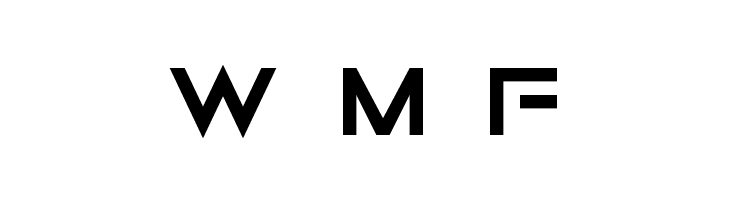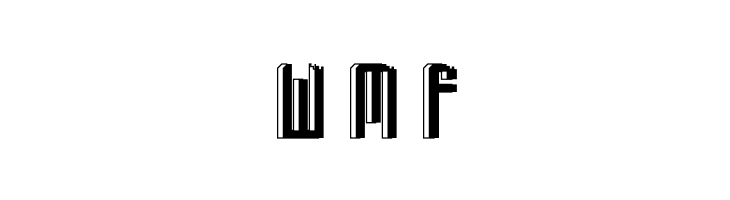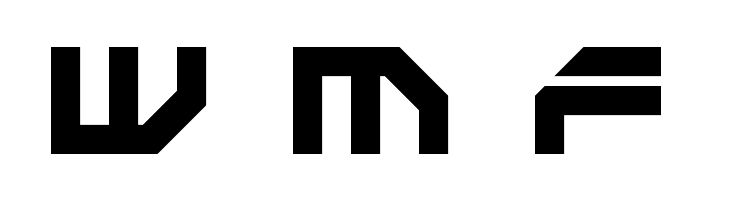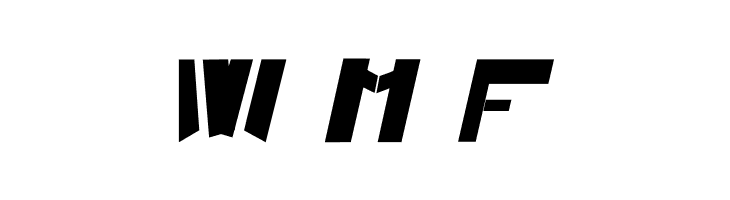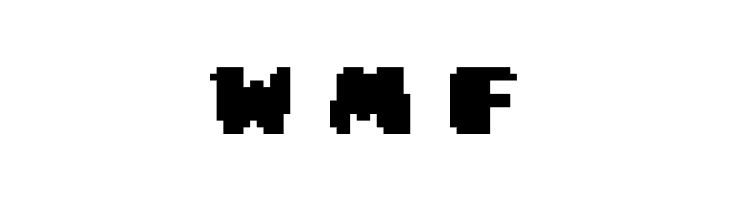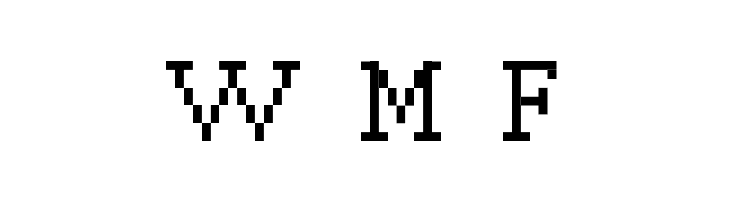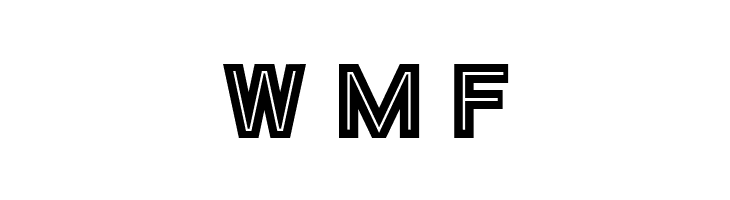
( Salvador Rodríguez )
A pixelated, retro-style font inspired by classic video games.
( Simone Ippoliti )
A pixelated, retro-style font with a digital, blocky appearance.
( TheLouster115 )
A pixelated, retro font inspired by classic video games.
( Vladimir Nikolic - www.coroflot.com/vladimirnikolic )
A decorative font made from video game controller icons.
( Vladimir Nikolic - www.coroflot.com/vladimirnikolic )
A 3D block font with a retro, video game-inspired design.
( fontvir.us - xero harrison - fontvir.us )
Pixel-art decorative font with retro video game villain characters.
( hechicero - www.ff-omeganebula.com )
A decorative and intricate font with mystical, calligraphic elements.
A bold, brush-style font with dynamic, handcrafted strokes.
A bold, pixelated font with a retro, video game-inspired design.
( memesbruh03 - Aaron D. Chand )
A pixelated, blocky font inspired by early digital displays and retro video games.
( myname5749 )
A pixelated, grid-based font with a retro digital aesthetic.
( w01v35w0rd )
Pixel-art symbol font with diverse icons and a retro gaming feel.
( 010Bus )
A pixelated, monospaced font with a retro digital style.
( 010Bus )
A pixelated, blocky font with a retro digital aesthetic.
( 04 - www.04.jp.org )
A pixelated, monospaced font with a retro digital aesthetic.
( BitmapMania - bitmapmania.m78.com/ )
A pixelated, decorative font with characters enclosed in a gear-like border, evoking a retro digital feel.
( Brynda1231 Industries )
A pixelated, monospaced font with a retro digital aesthetic.
( Casually Hardcore - www.casuallyhardcore.co.uk/ )
A bold, pixelated font with a retro video game style.
( Casually Hardcore - www.casuallyhardcore.co.uk/ )
A bold, pixelated font with a retro video game aesthetic.
( Chequered Ink - chequered.ink/ )
A bold, playful handwritten font with rounded, irregular letterforms.
( CreeperPower618 )
Pixelated pictograph font with ancient and digital influences.
( Daniel Nagura - )
A pixelated, retro-style font inspired by classic 8-bit video games.
( Daniel Nagura - )
A pixelated, outlined font inspired by classic 8-bit video games.
( Digital Type Foundry - www.digitaltypefoundry.com/ )
A runic-inspired font with angular, geometric shapes and medium contrast.
( Dingbat Dungeon )
Geometric maze-like design with a classic dungeon map aesthetic.
( Electropithecus )
A bold, pixelated font with a retro video game aesthetic.
( Family Font Mart - www.h2o.or.jp/~orihikao/ )
Pixelated monospaced Japanese font with a retro digital style.
( Fleisch )
A pixelated, monospaced font with a retro digital aesthetic.
( Font-a-licious - www.fontalicious.com/ )
A bold, playful font inspired by classic arcade games with geometric shapes.
( GeelynEdits - plus.google.com/u/0/108461348931992643310/ )
A pixelated, monospaced font with a retro digital aesthetic.
( Genshichi Yasui - www.jttk.zaq.ne.jp/babwp701/hpfont/font.html )
A bold, pixelated font with a retro arcade game style.
( Genshichi Yasui - www.jttk.zaq.ne.jp/babwp701/hpfont/font.html )
A pixelated, retro font inspired by classic arcade games.
( Genshichi Yasui - www.jttk.zaq.ne.jp/babwp701/hpfont/font.html )
A pixelated, retro-style font inspired by classic arcade games.
( Genshichi Yasui - www.jttk.zaq.ne.jp/babwp701/hpfont/font.html )
A bold, pixelated font with a retro arcade game style.
( Gomarice Font - www.geocities.jp/gomarice_font/ )
A bold, geometric font with sharp angles and a modern, industrial feel.